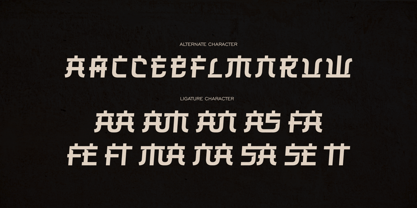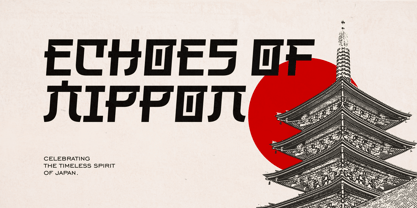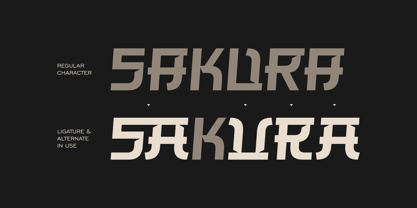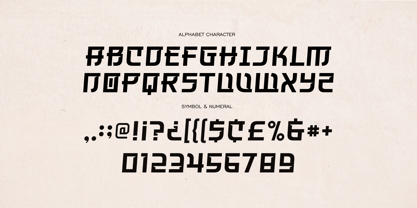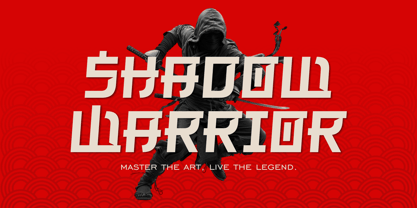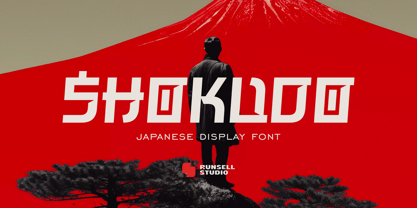
Shokudo
by Runsell Type
The Shokudo Font Family was designed by Satia Hayu Prabowo and published by Runsell Type. Shokudo contains 1 styles.
Shokudo inspired font that beautifully blends traditional Japanese calligraphy with contemporary design elements. Each letter is crafted with precision, offering a harmonious balance between boldness and grace. Ideal for projects needing a touch of Japanese culture, Shokudo is perfect for branding, posters, packaging, and any design that seeks to incorporate the timeless beauty of Japan’s artistic heritage. Whether you’re creating a serene design or something more vibrant, Shokudo brings an air of sophistication and authenticity to your typography.
Designers: Satia Hayu Prabowo
Publisher: Runsell Type
Foundry: Runsell Type
Design Owner: Runsell Type